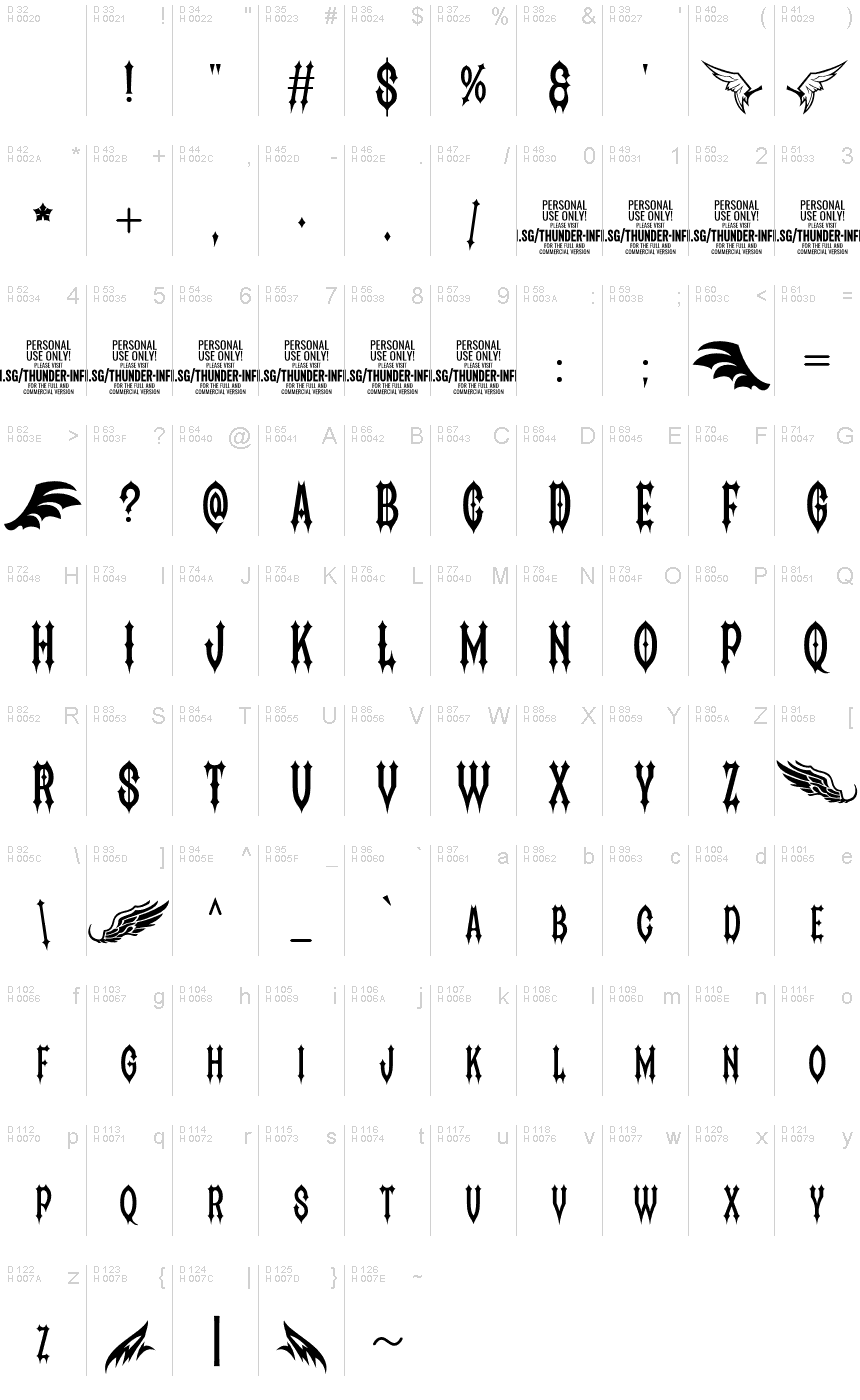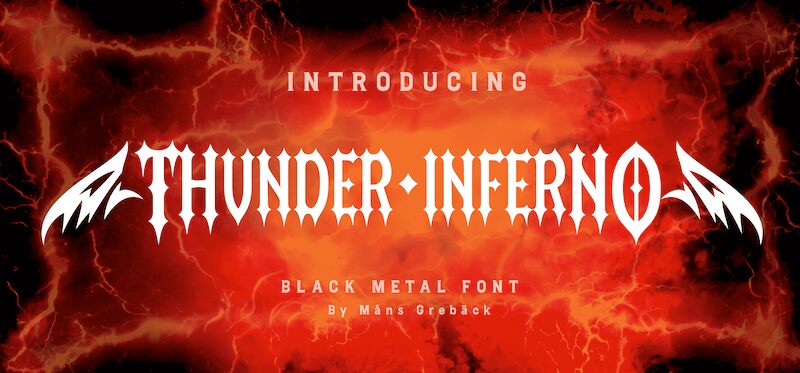
Thunder Inferno, designed by Mans Greback, is a modern gothic font that exudes an air of darkness and intensity. With its sharp serifs and roots in the aesthetics of heavy metal and the occult, this font is perfect for projects seeking to convey a sense of mystery and edge.
Its extra-condensed width adds to its unique appeal, making it suitable for album covers, band logos, horror movie titles, or tattoo designs. Whether you're looking to unleash the power of darkness or embrace the mystique of the occult, Thunder Inferno is the font that will make your project stand out with its electrifying presence.
Capitalize the first and last letters of any word for a symmetrical heavy metal style.
Example: Heavy metaL
Enclose any word in < > ( ) [ ] { } to give it wings.
Example: [HawkstylE]